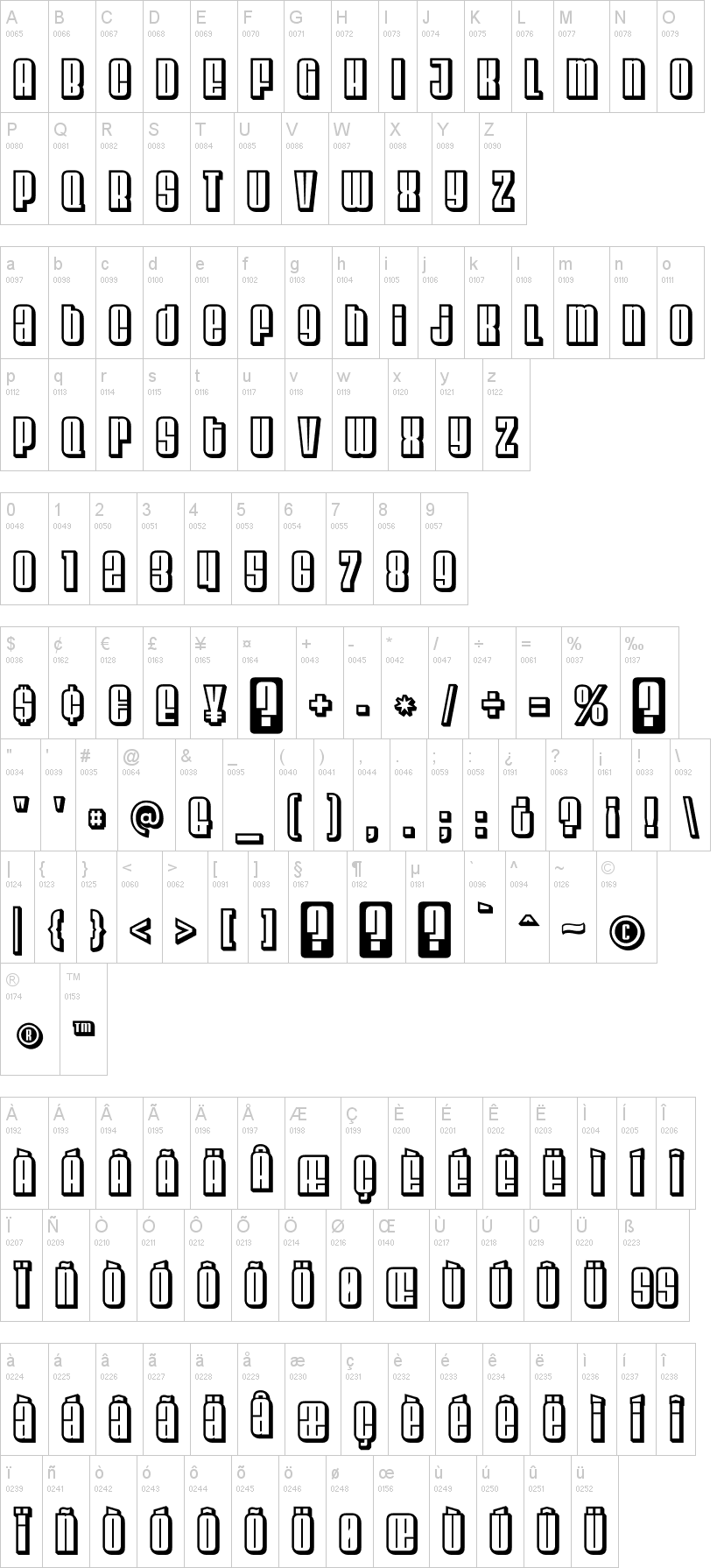
Шрифт Velvenda
Velvenda is narrow . . . like your mind. Wake up, people. Wake up and smell the proverbial coffee. Don't forget to read the files inside the zip for details. Updated in 2012.